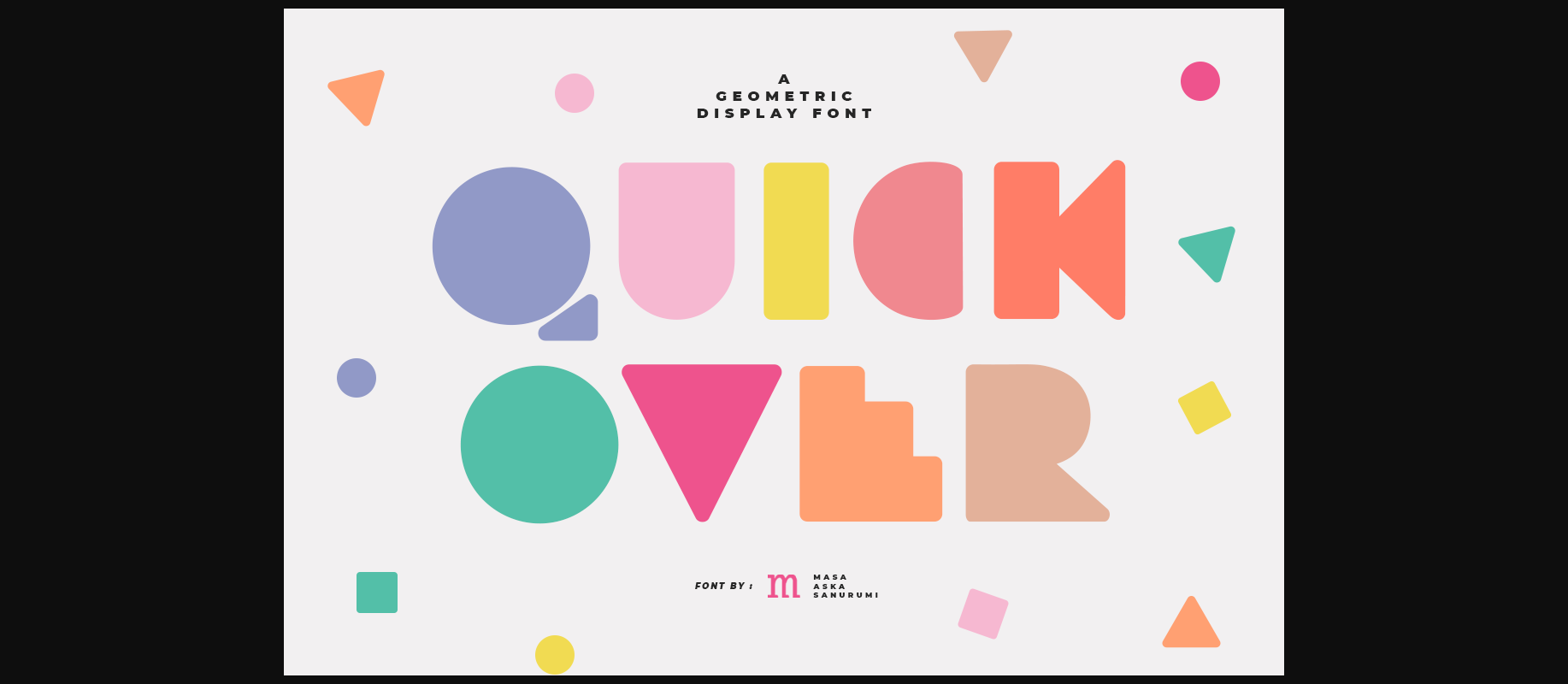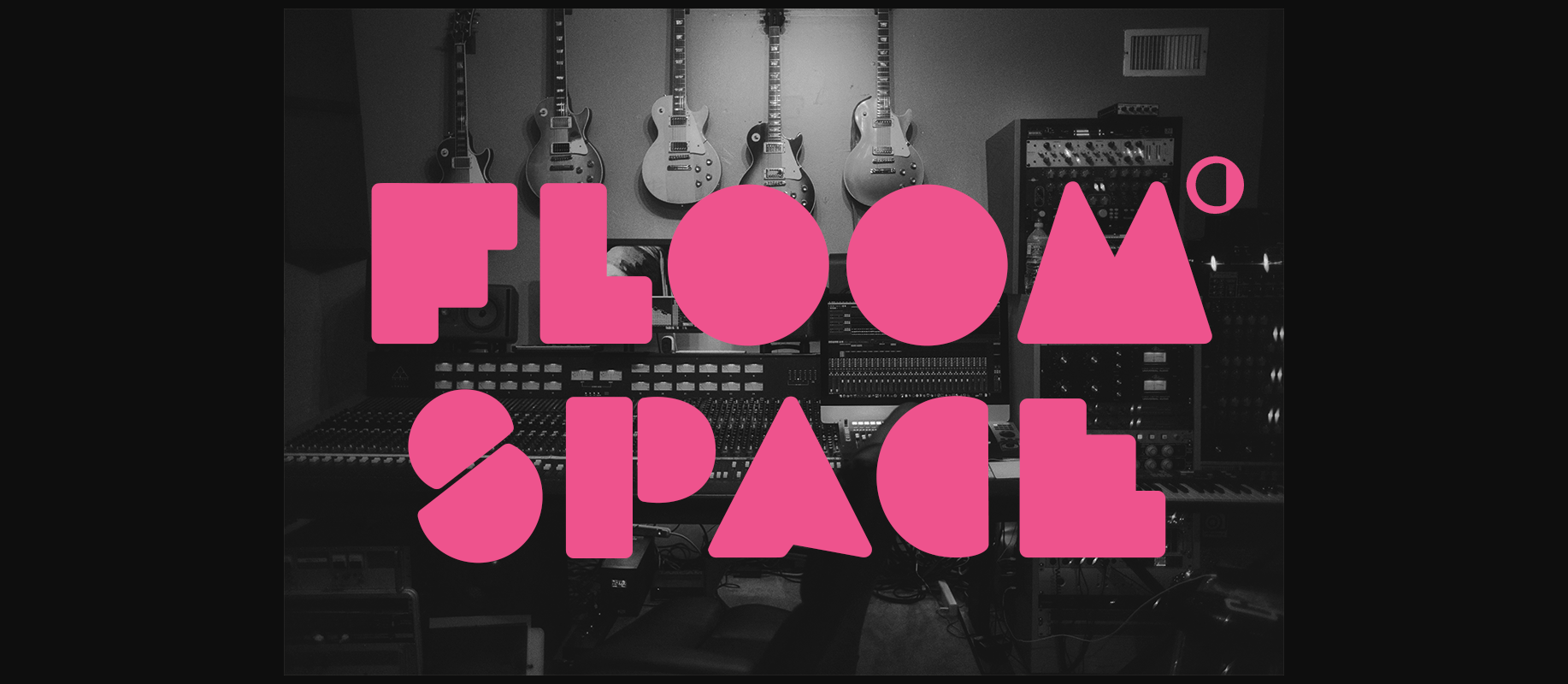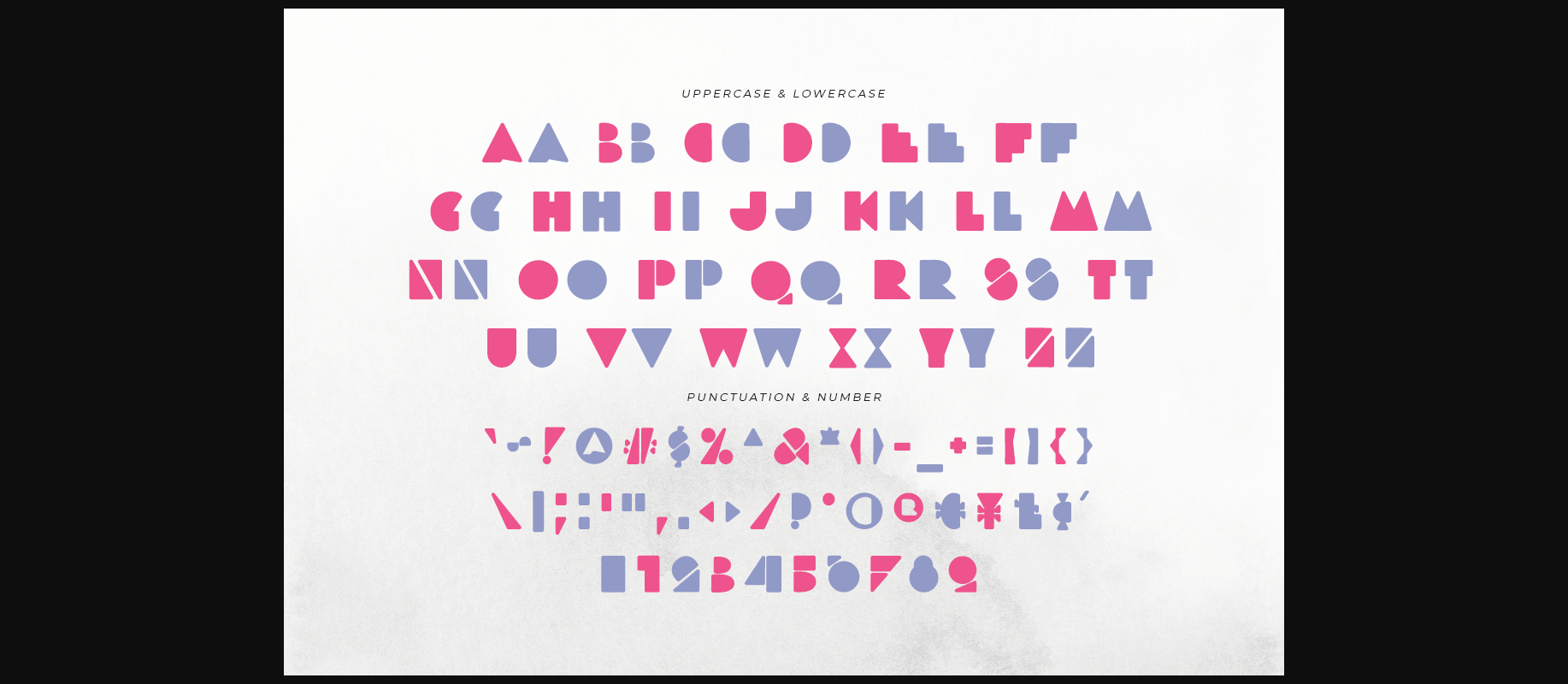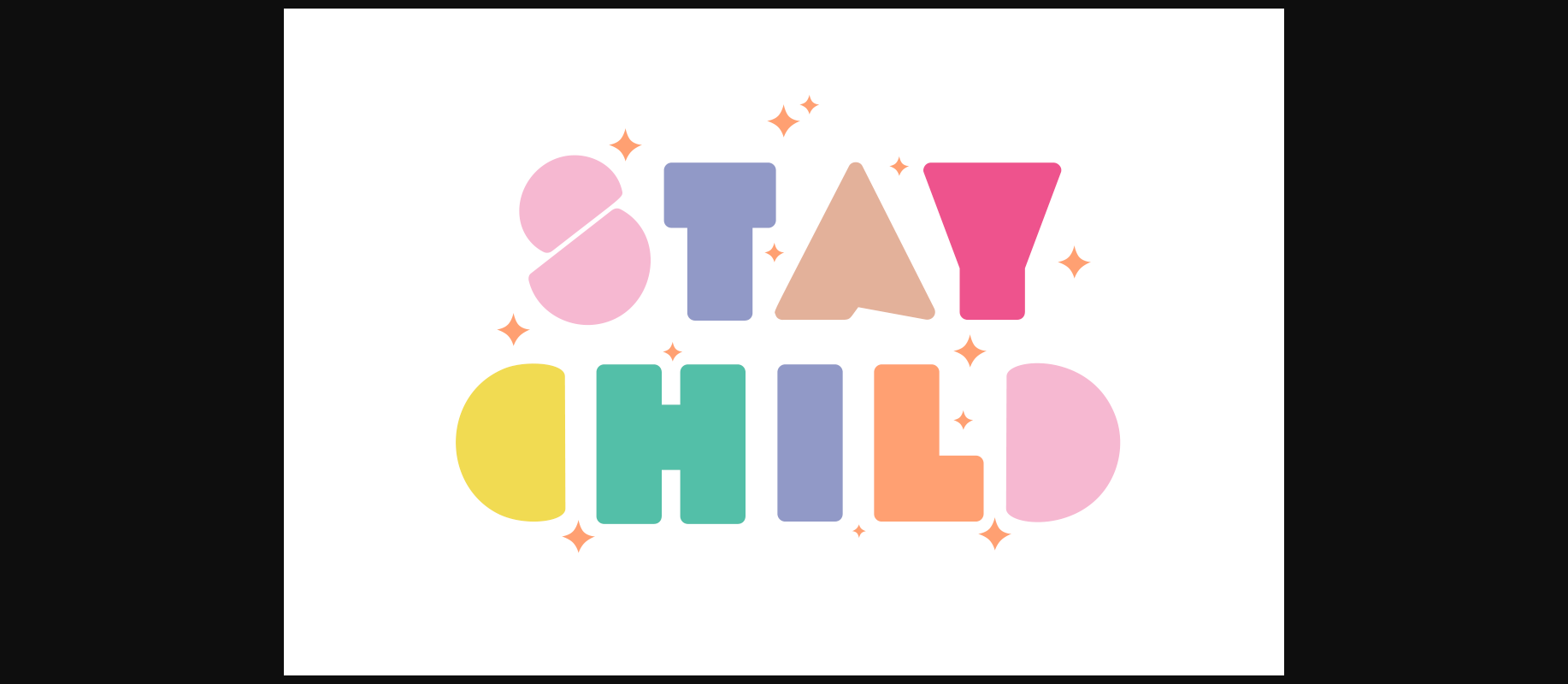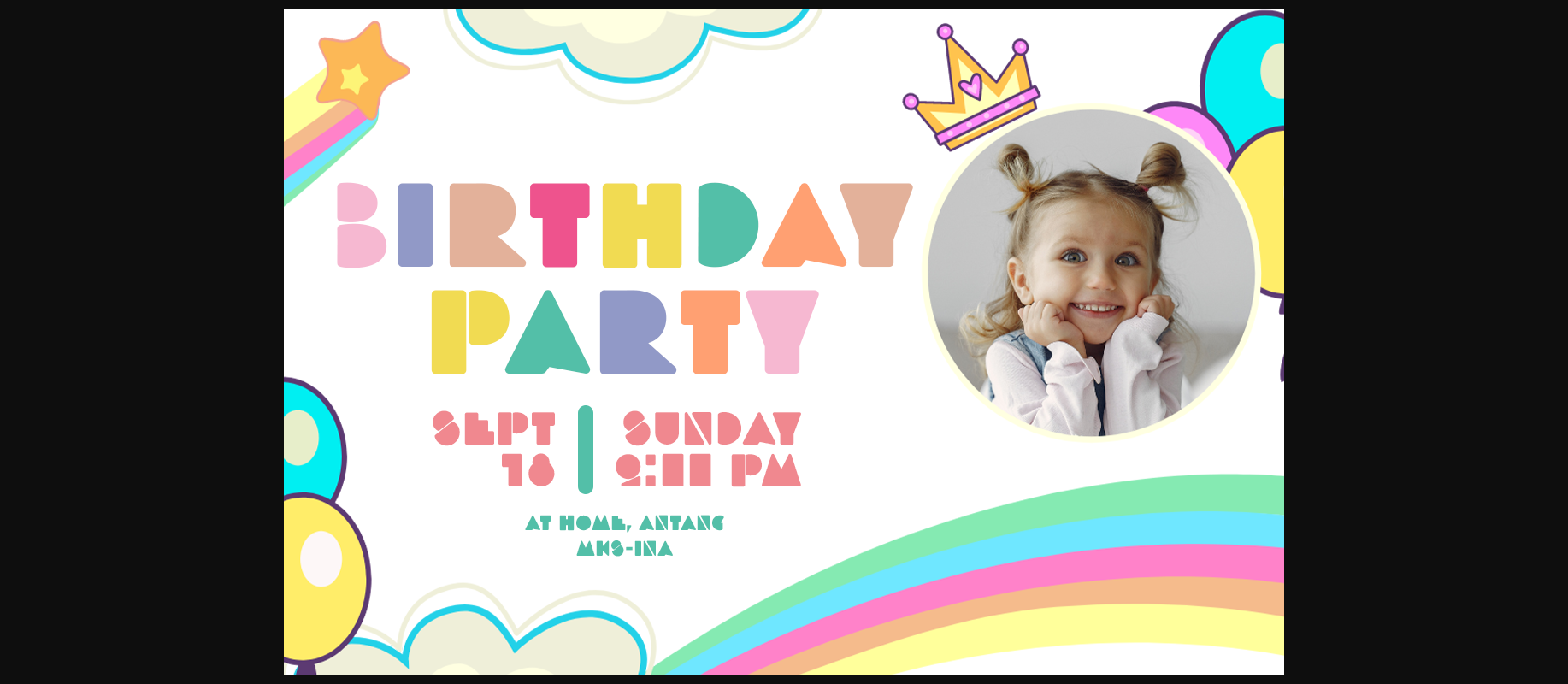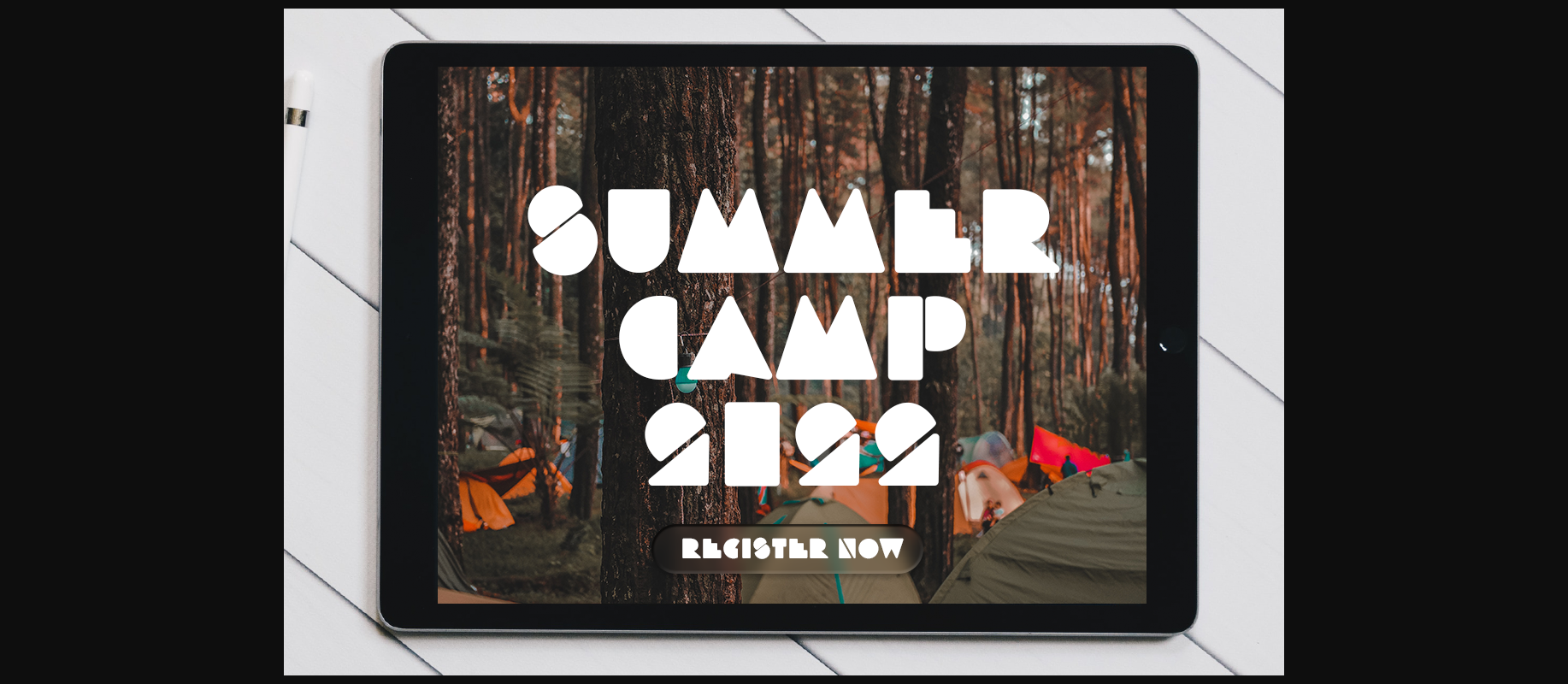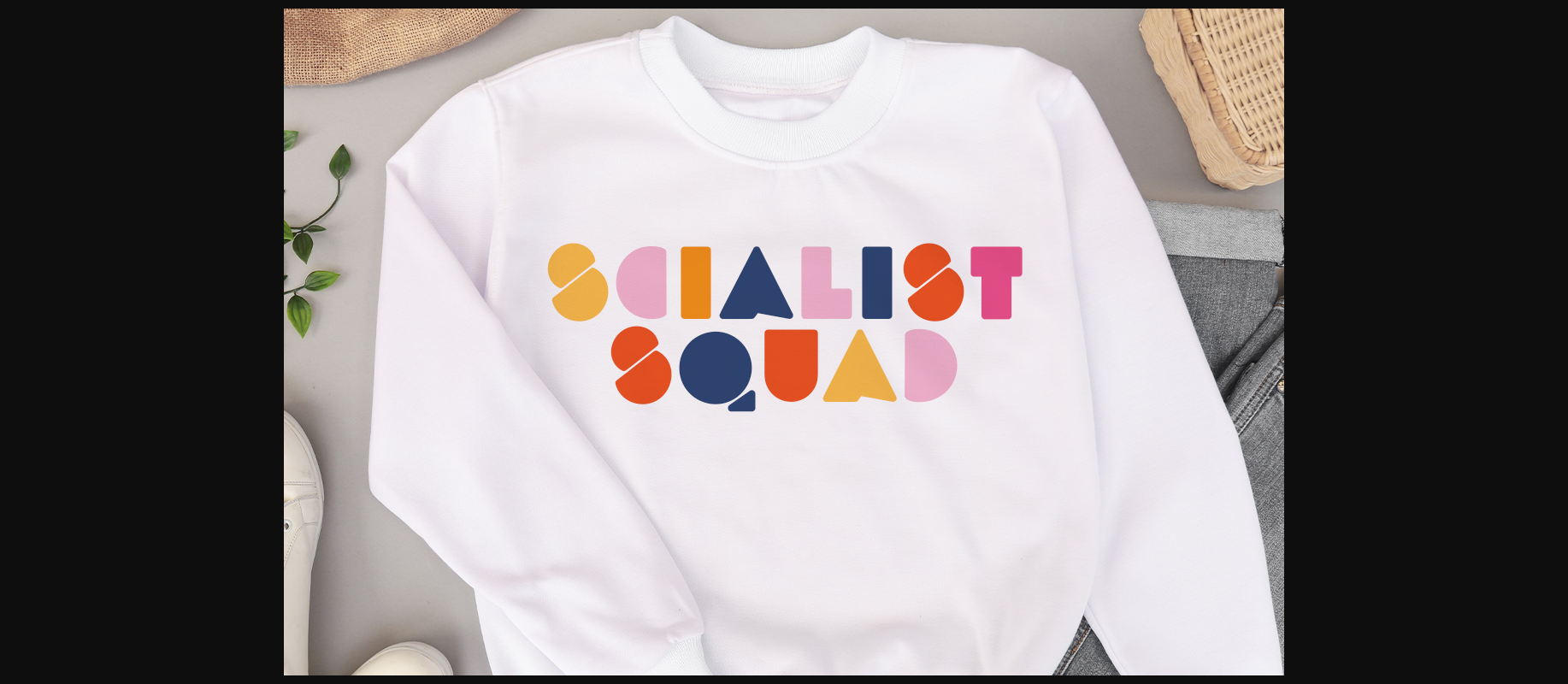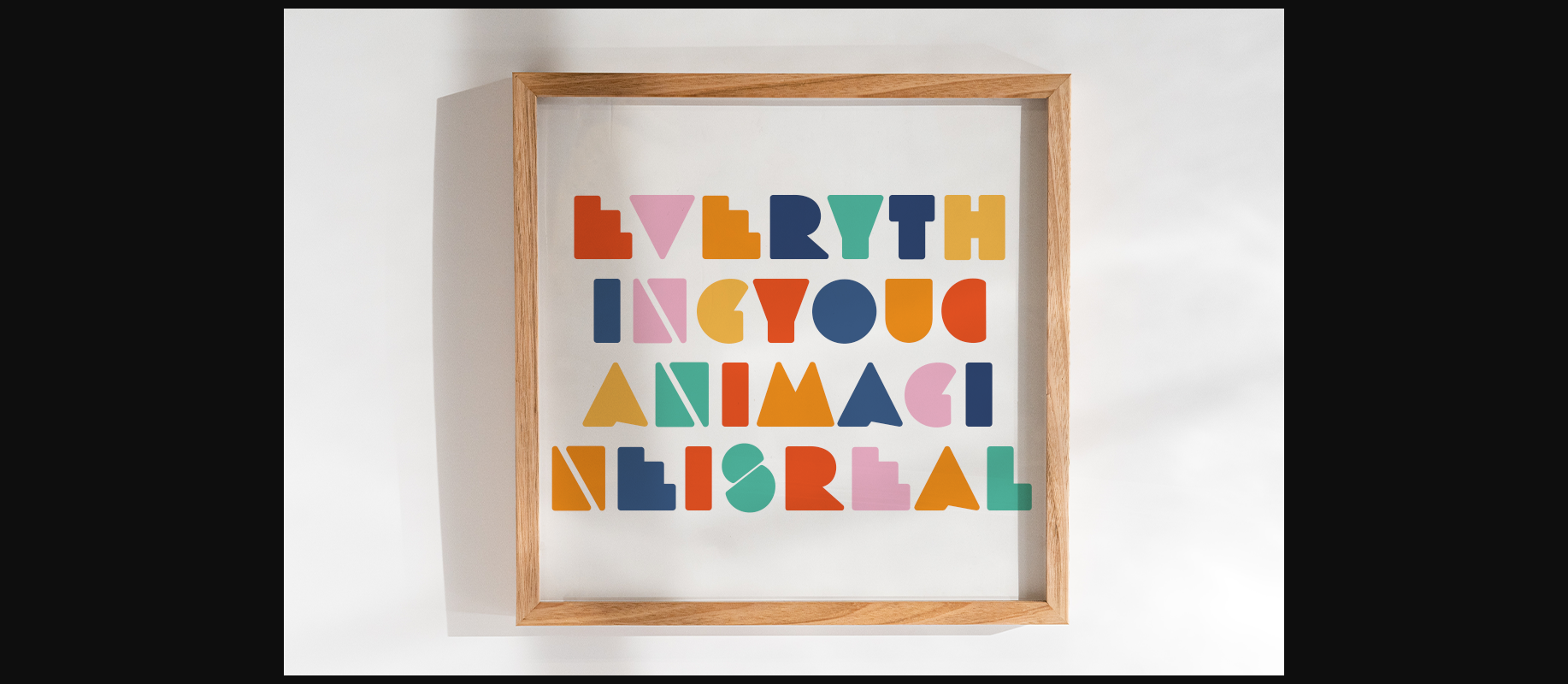
Quick over Font
About Quick over Font
Quick Over is a stylish and playful decorative font. Use it to add that special touch to any design idea you can think of! Masterfully designed to become a true favorite, this font has the potential to bring each of your creative ideas to the highest level!